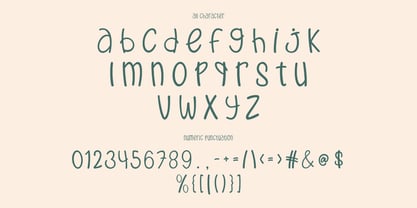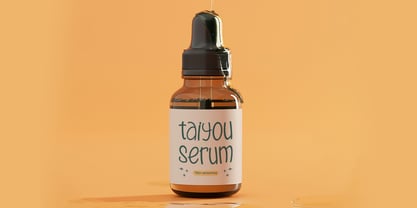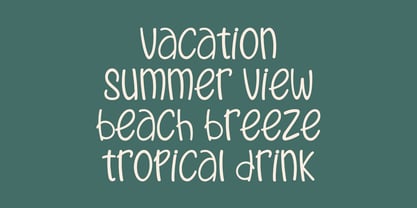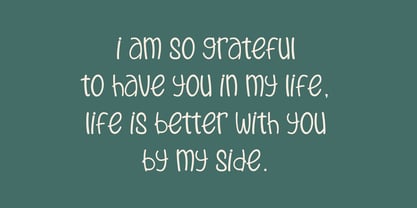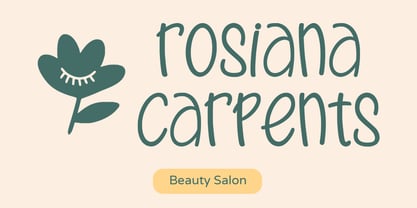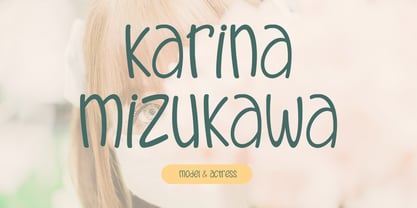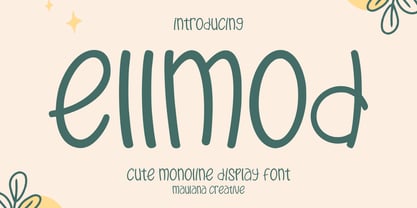
MC Ellmod
by Maulana Creative
The MC Ellmod Font Family was designed by Gilang Maulana and published by Maulana Creative. MC Ellmod contains 1 styles. More about this family
Ellmod Cute Monoline Display Handwritten Font.
Ellmod is a cute monoline handwritten font. With rounded stroke and fun character to give you an extra creative work. Ellmod font support multilingual more than 100+ language. This font is good for logo design, Social media, Movie Titles, Books Titles, a short text even a long text letter and good for your secondary text font with sans or serif. Make a stunning work with Ellmod font.